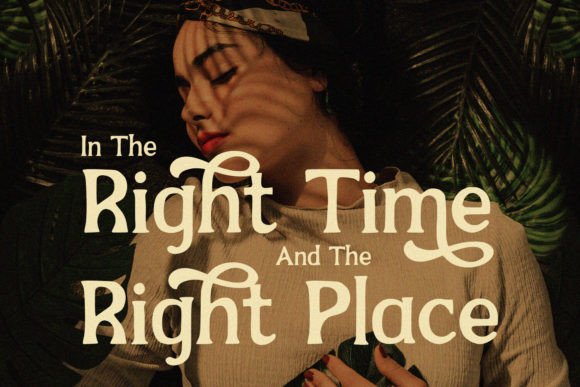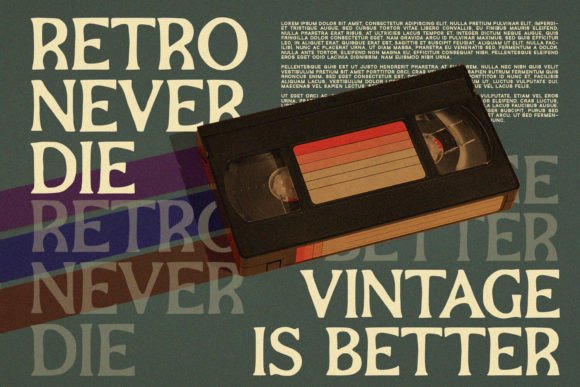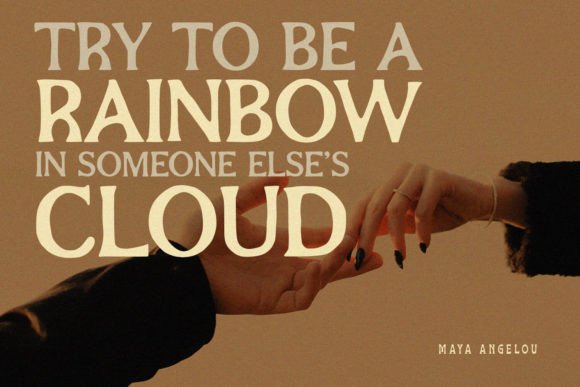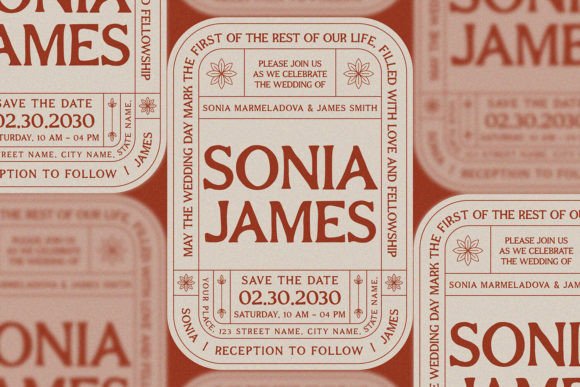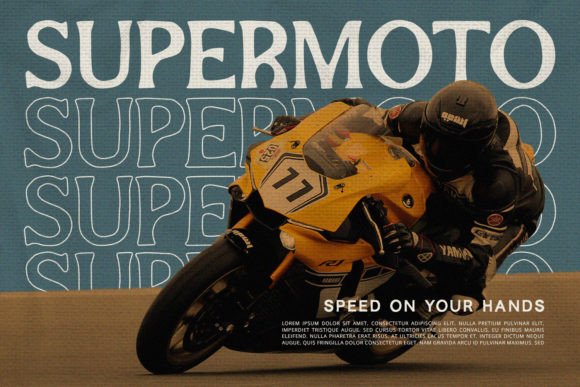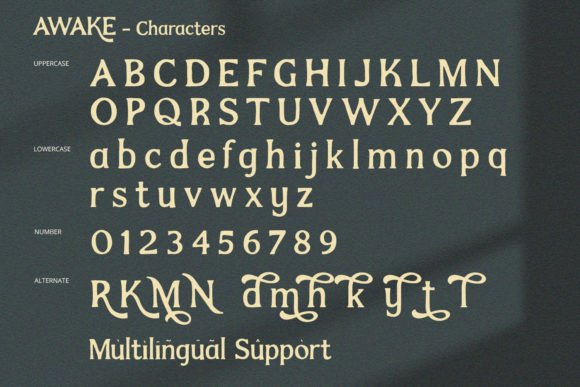
Awake Font: Elevate Your Designs with Timeless Elegance
In the world of typography, fonts play a crucial role in conveying the tone and personality of a brand or design. For those seeking a typeface that exudes classic sophistication with a modern twist, the Awake Font is an excellent choice. This stylish serif font seamlessly blends traditional elegance with contemporary flair, making it perfect for a wide range of applications, from branding and editorial work to luxury designs.
The Essence of Awake Font
Awake Font is characterized by its refined serifs and well-proportioned letterforms, which contribute to its timeless beauty and versatility. The font’s design is rooted in traditional serif typography, yet it incorporates subtle modern touches that enhance its appeal and functionality. This blend of classic and contemporary elements makes Awake Font an ideal choice for designers looking to add a touch of sophistication to their projects.
Key Features of Awake Font
- Refined Serifs: The serifs in Awake Font are carefully crafted to add a level of elegance and refinement to any text. These subtle details enhance the readability and aesthetic appeal of the font, making it suitable for high-end designs.
- Well-Proportioned Letterforms: Each letterform in Awake Font is meticulously designed to ensure optimal legibility and harmony. The balanced proportions of the characters contribute to the font’s classic feel and make it easy to read in various contexts.
- Timeless Beauty: Awake Font embodies a sense of timelessness that transcends fleeting trends. Its design ensures that your projects will remain stylish and relevant for years to come, providing a solid foundation for your brand or design.
- Versatility: Whether you’re working on branding, editorial content, or luxury designs, Awake Font adapts effortlessly to different applications. Its versatility makes it a valuable addition to any designer’s toolkit.
Applications of Awake Font
The elegance and sophistication of Awake Font make it suitable for a variety of design projects. Here are some of the key areas where this font truly shines:
- Branding: Establish a strong and luxurious brand identity with Awake Font. Its refined appearance helps create a lasting impression and conveys a sense of quality and sophistication.
- Editorial Work: Enhance the readability and aesthetic appeal of your editorial content with Awake Font. Whether you’re designing a magazine, newspaper, or blog, this font adds a touch of class to your text.
- Luxury Designs: For high-end designs, such as luxury packaging, advertising, or website headers, Awake Font is an excellent choice. Its elegant serifs and well-crafted letterforms elevate your designs to new heights.
Why Choose Awake Font?
In a world where fonts are abundant and choices are endless, Awake Font stands out for its unique blend of classic elegance and modern sophistication. Here are a few reasons why designers and crafters prefer Awake Font:
- Unique Aesthetic: Awake Font offers a distinctive look that sets it apart from more common typefaces. Its refined serifs and balanced letterforms create a visually appealing text that captures attention.
- High Readability: Despite its elegant appearance, Awake Font maintains high readability, making it suitable for both headings and body text.
- Easy to Pair: Awake Font pairs well with a variety of other typefaces, allowing designers to create harmonious and engaging typography schemes.
Awake Font is a stylish serif font that brings a sense of timeless beauty and grace to any design project. Its refined serifs, well-proportioned letterforms, and versatile nature make it an excellent choice for designers and crafters looking to add a touch of class and sophistication to their work. Whether you’re working on branding, editorial content, or luxury designs, Awake Font is sure to elevate your projects and leave a lasting impression.